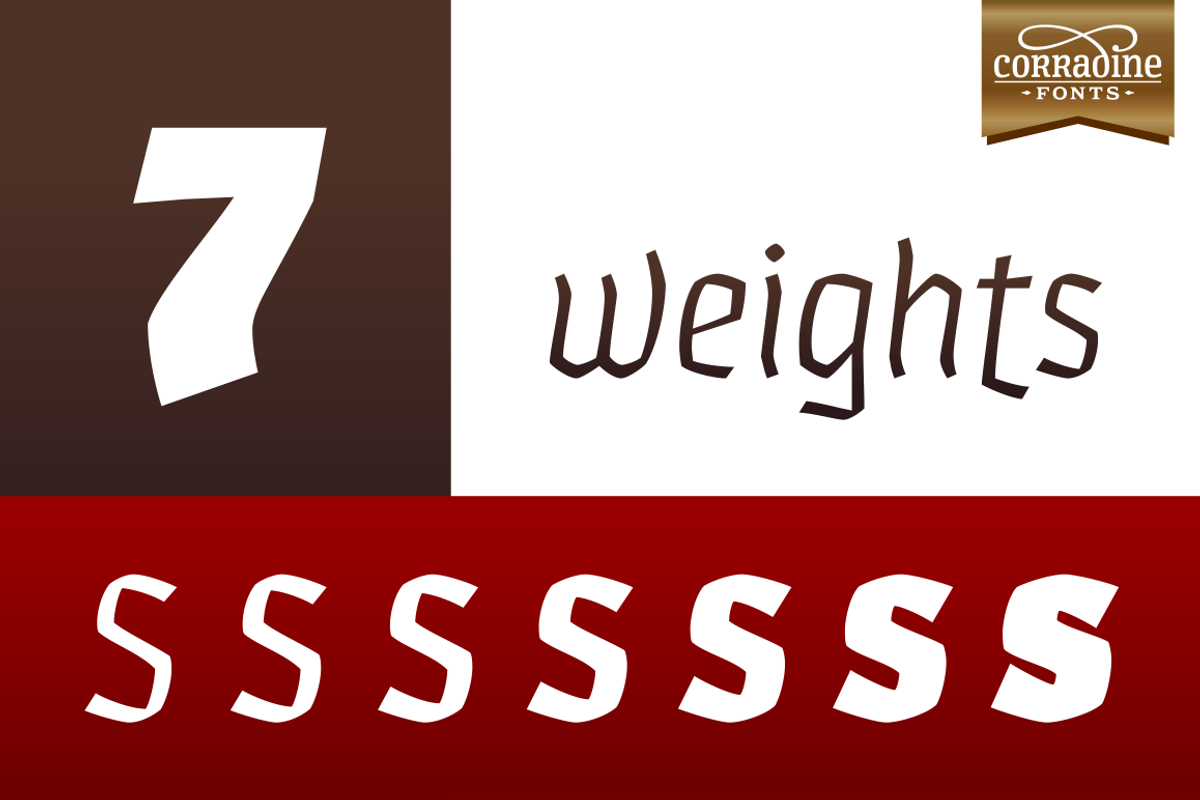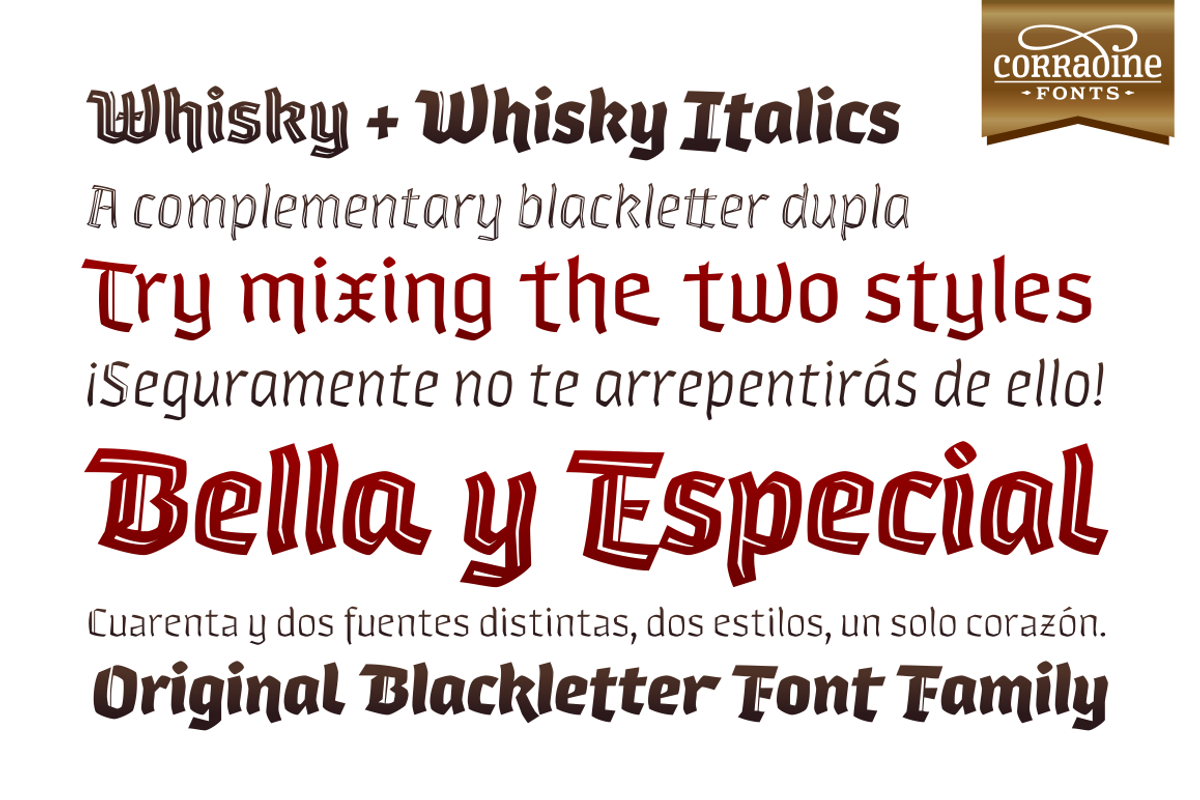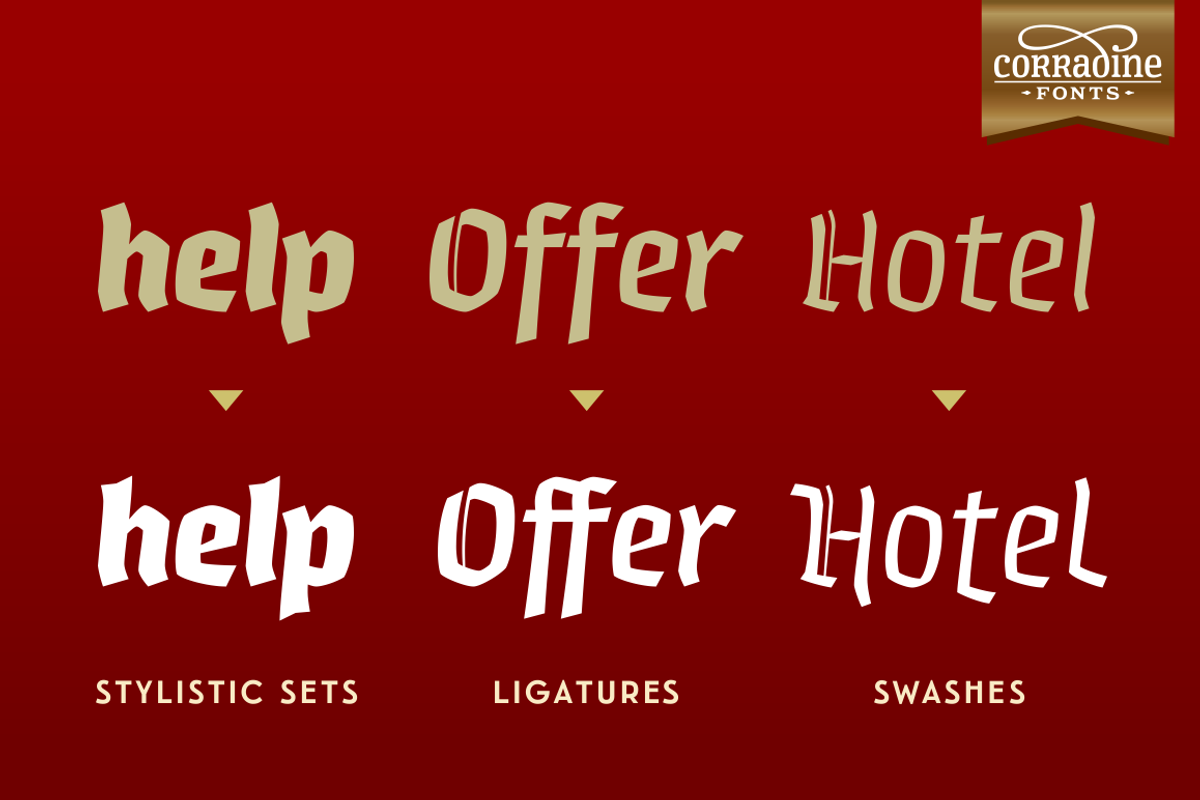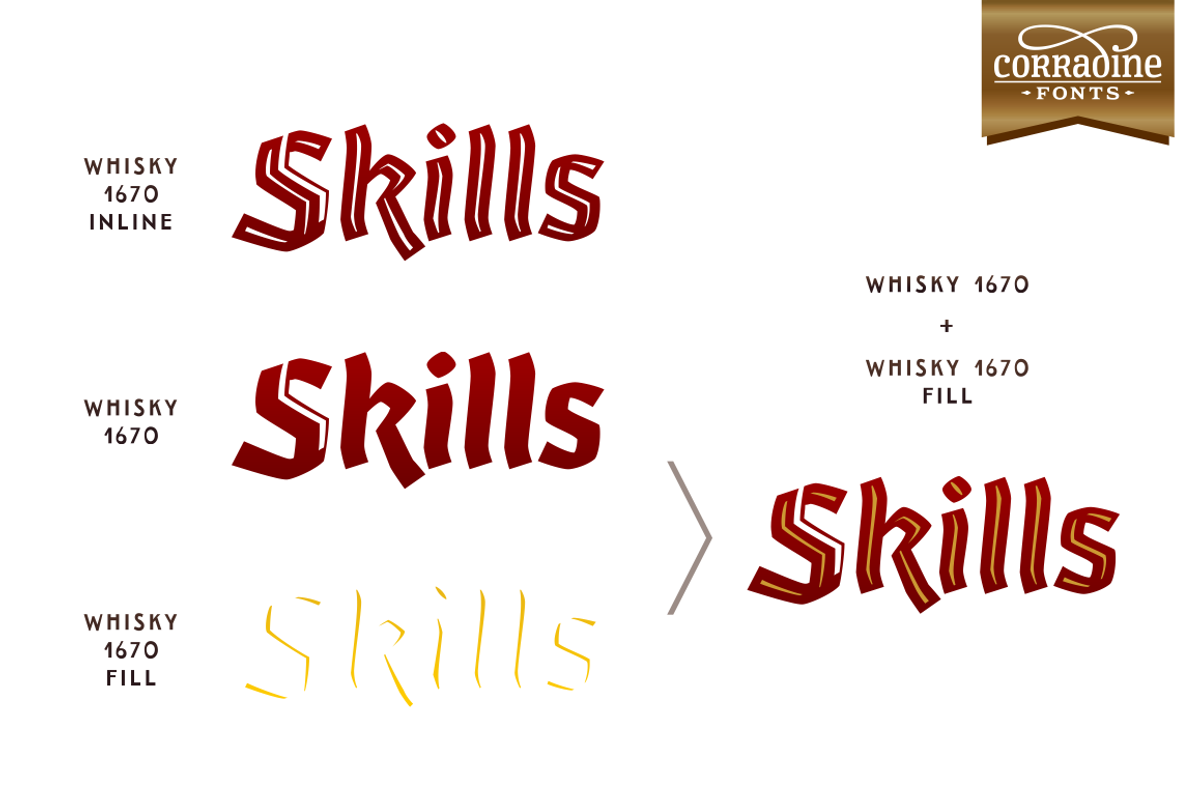
Whisky Italics
Whisky Italics by Corradine Fonts is a font selected for branding, posters, packaging, typography.
- Like the original Whisky family Whisky Italics includes seven weights, each with a fill and a inline version that allow you to develope more
- Also by using Open Type features you can access to an extended set of characters wich contains swashes and alternative endings to make more
Why Whisky Italics is worth a look
Whisky Italics by Corradine Fonts fits naturally into Branding, posters, packaging, typography.